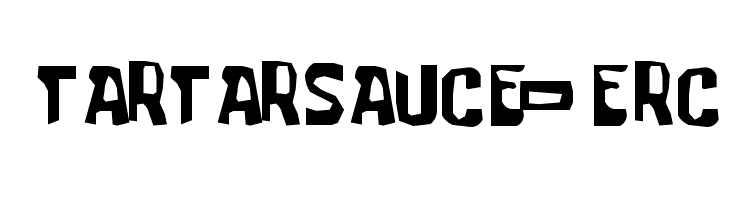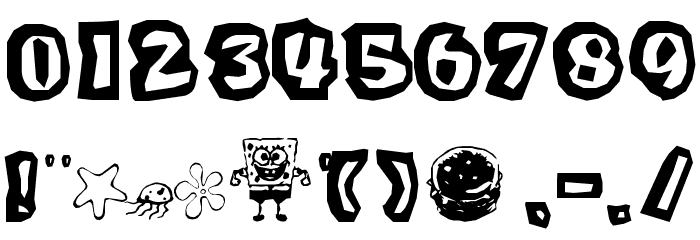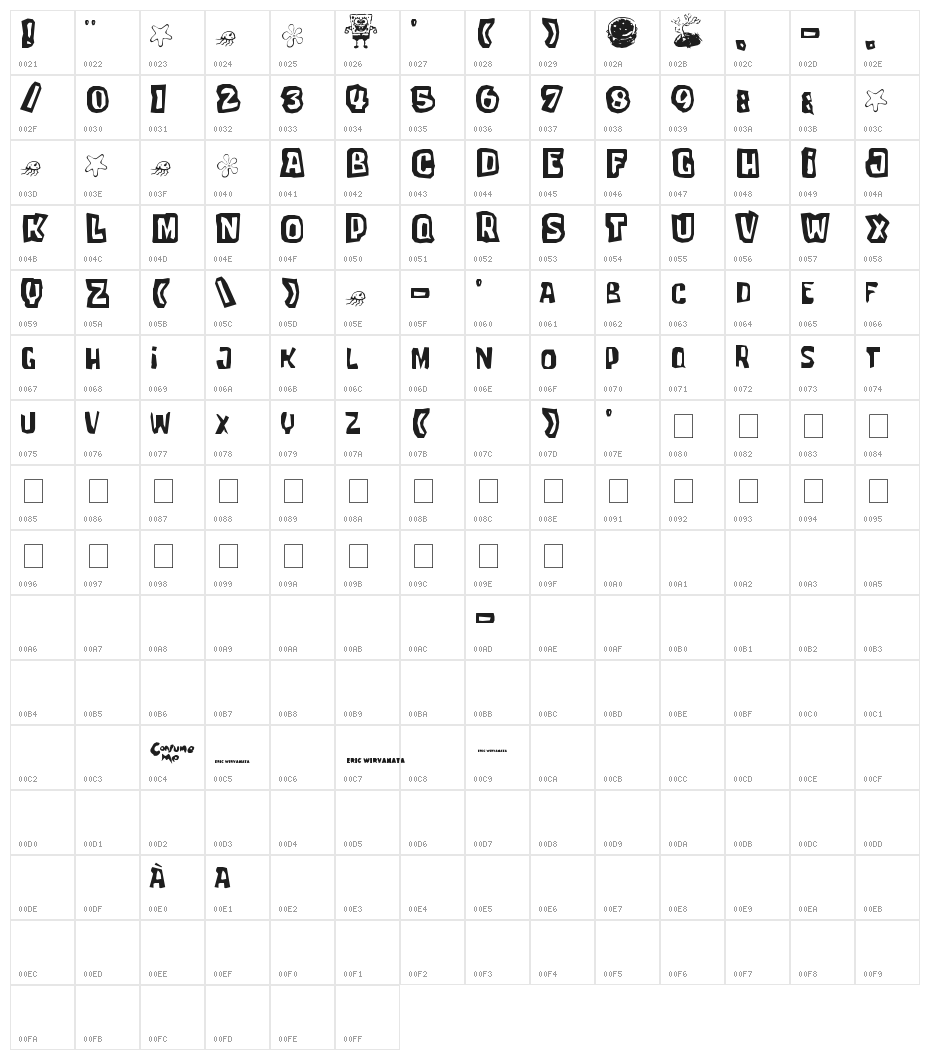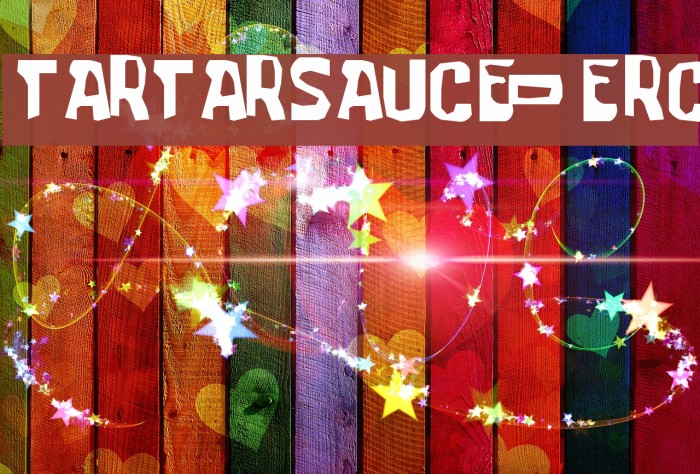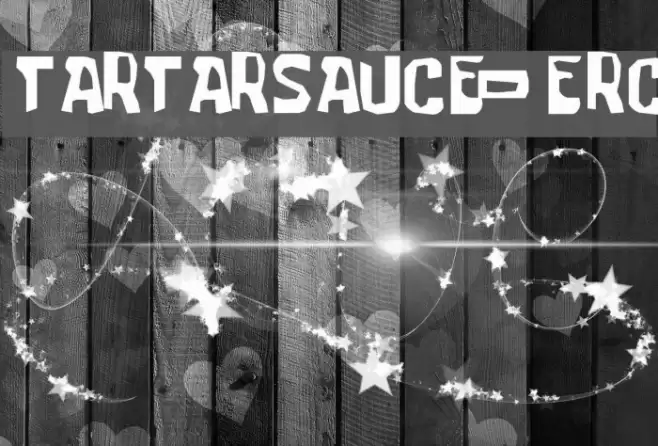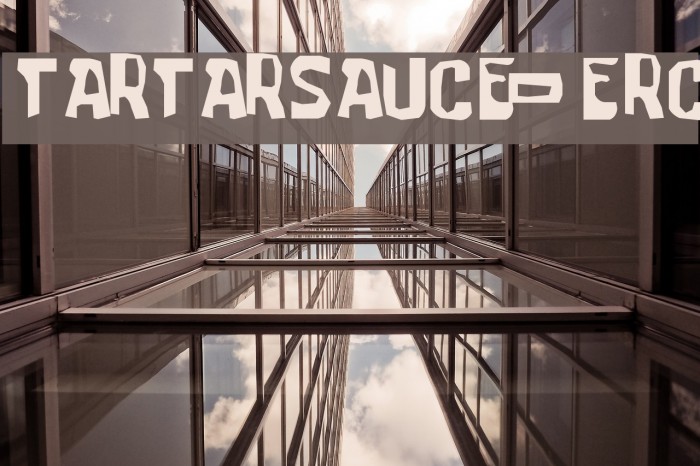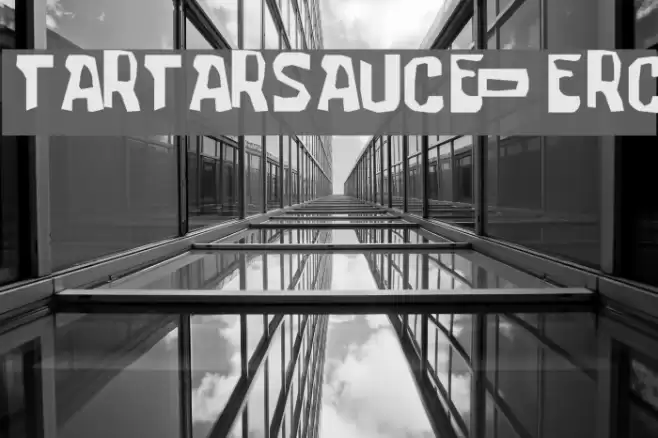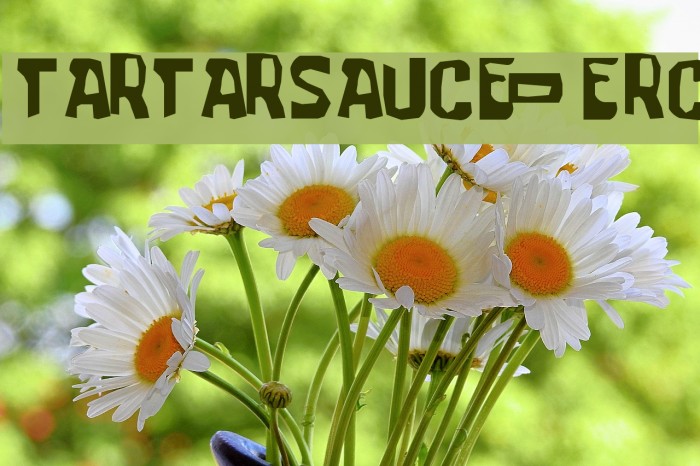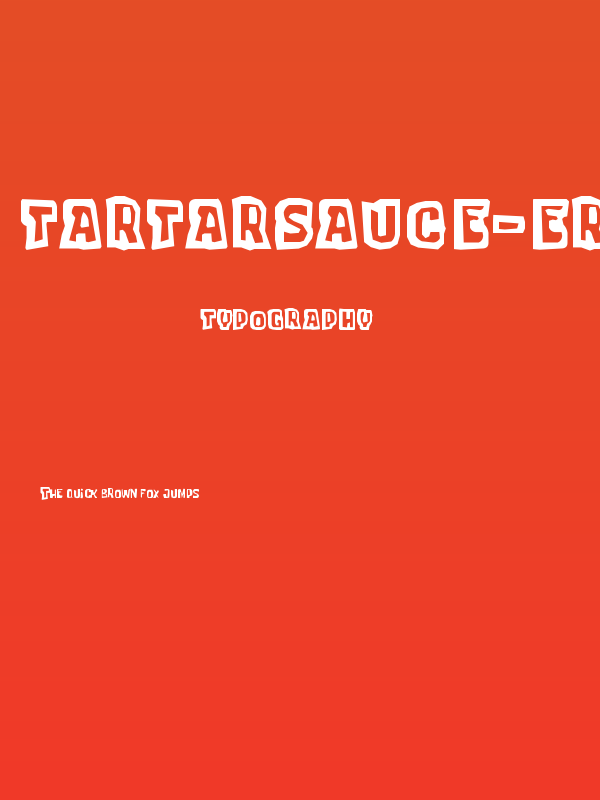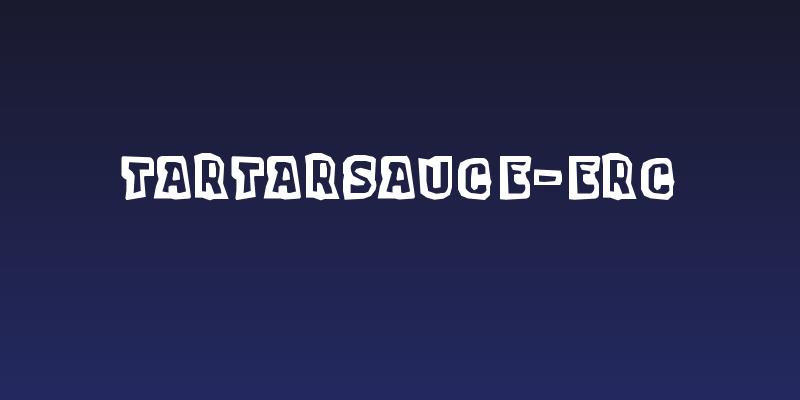
tartarsauce_erc Font
tartarsauce_erc Description
This playful and quirky font features bold, irregular shapes that give it a hand-drawn, cartoonish appearance. Each character is uniquely crafted with uneven edges and varying thickness, creating a dynamic and energetic feel. The font includes both uppercase and lowercase letters, numbers, and a selection of whimsical special characters. Its bold and chunky design makes it highly legible and eye-catching, perfect for projects that require a fun and informal touch. The overall style is reminiscent of comic book lettering, with a modern twist that adds a sense of humor and creativity.
| Overall Style | Modern, Cartoonish, Playful |
| Proposed Projects | Ideal for children's books, comic strips, playful branding, and creative posters. |